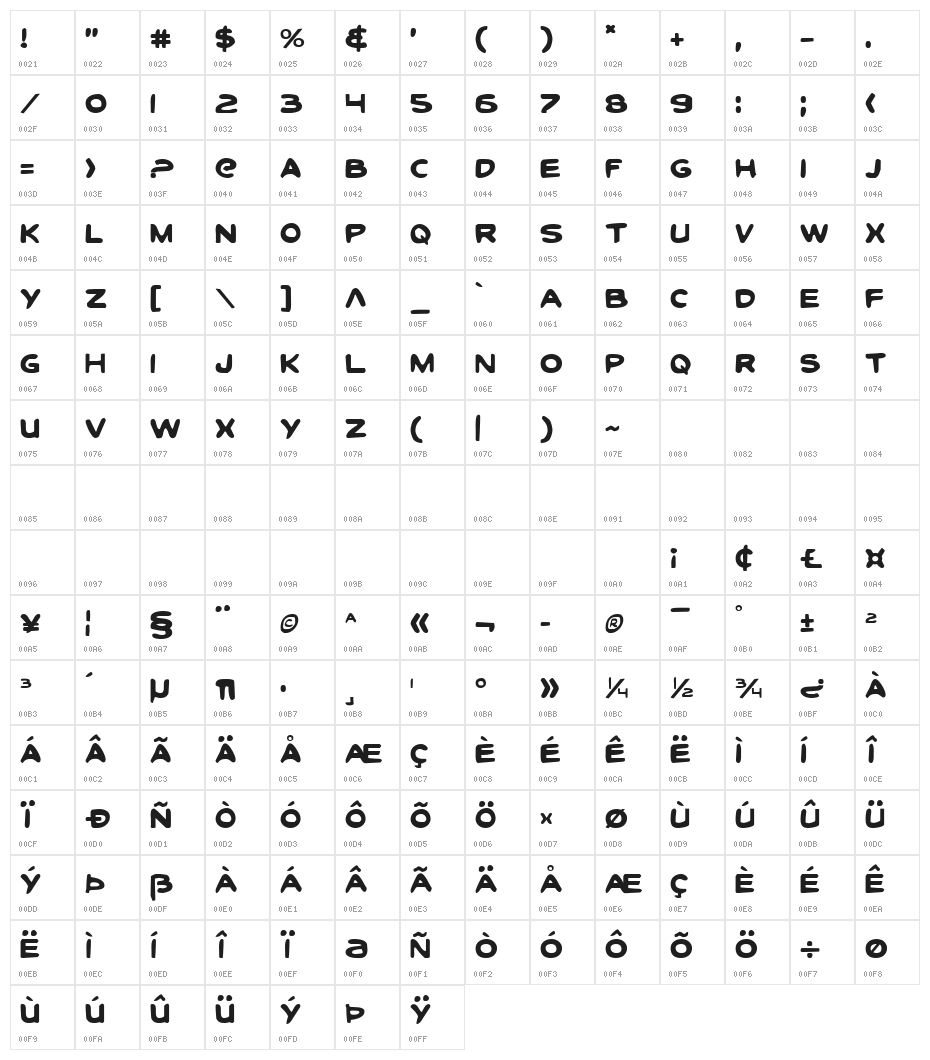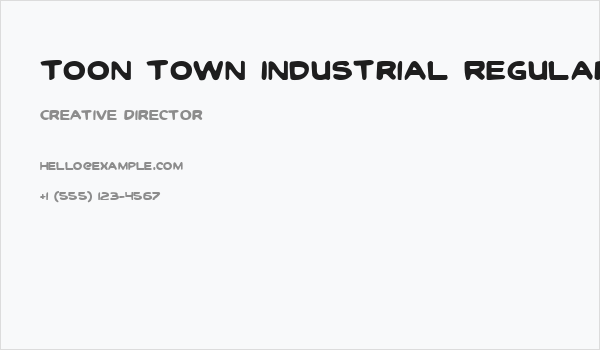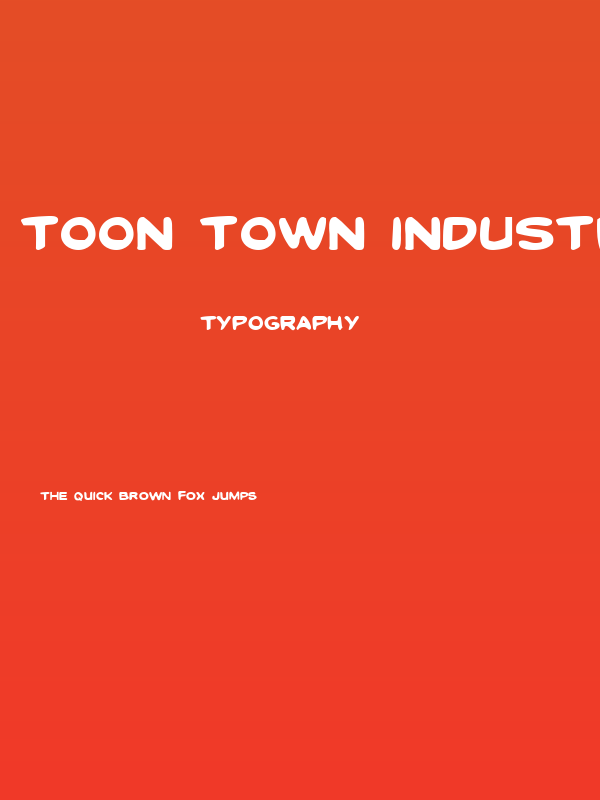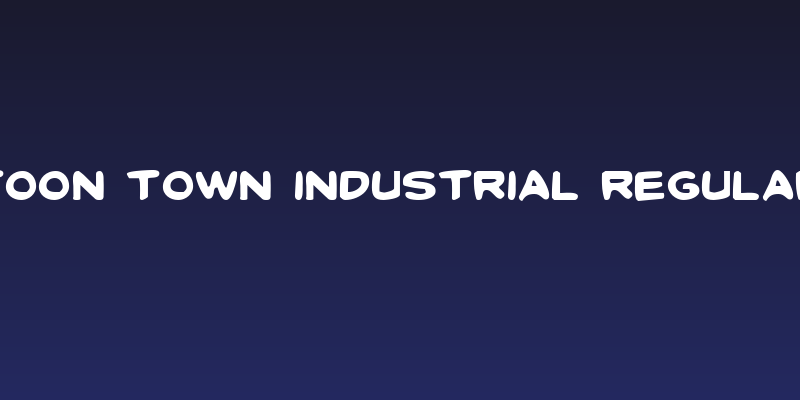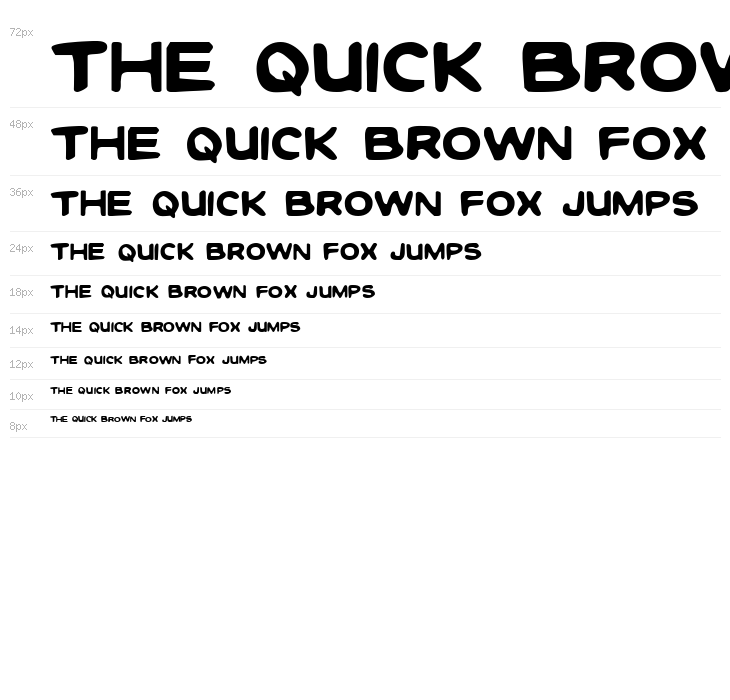
Toon Town Industrial Regular Font
Toon Town Industrial Regular Description
This font features a playful and bold design, characterized by its rounded and slightly irregular letterforms. The strokes are thick and consistent, giving it a cartoonish and friendly appearance. The characters have a whimsical quality, with exaggerated curves and a sense of movement that makes it stand out. The font maintains a uniform weight throughout, ensuring readability while adding a touch of fun. Its unique style is perfect for projects that require a lighthearted and approachable feel, making it suitable for children's books, comic strips, and playful branding.
| Overall Style | Playful, Cartoonish |
| Proposed Projects | Ideal for children's books, comic strips, playful branding, and casual invitations. |